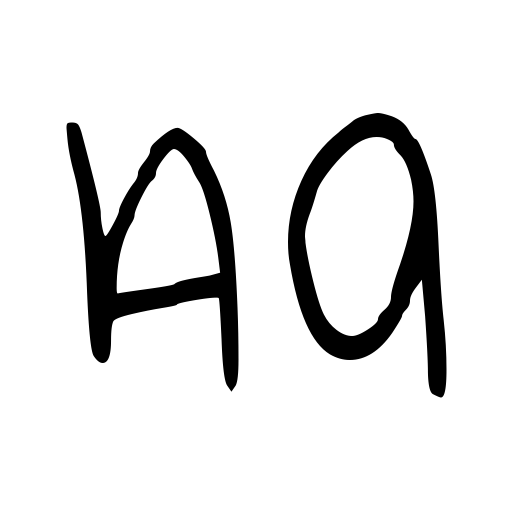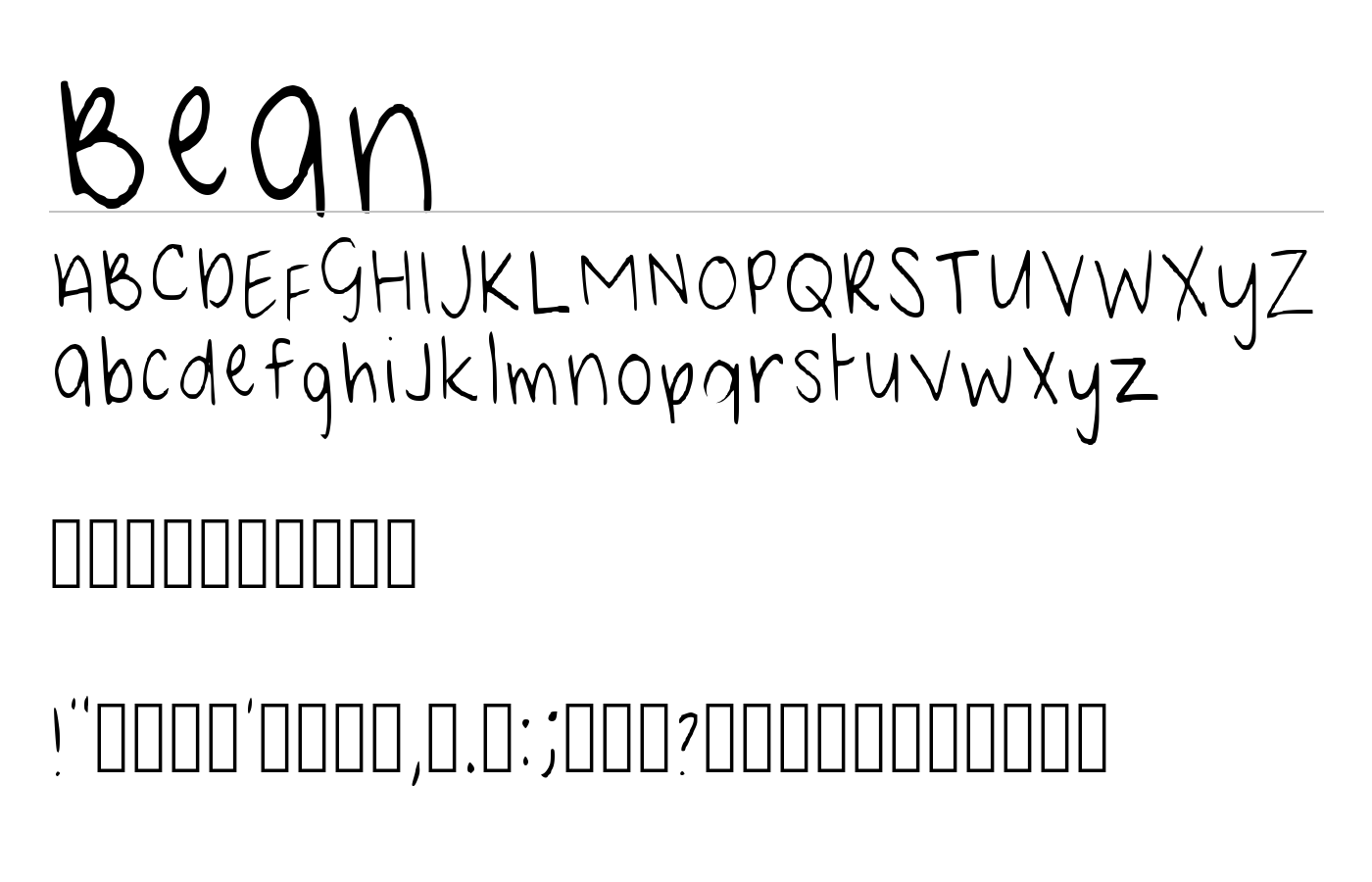
Bean Font is a playful, hand-drawn sans serif typeface with a casual and friendly vibe. Its irregular, organic letterforms and varying stroke weights give it an approachable, whimsical feel perfect for informal designs, kids’ projects, or creative branding. This font works best in headlines, logos, and packaging where a relaxed, fun personality is desired.
Bean Font